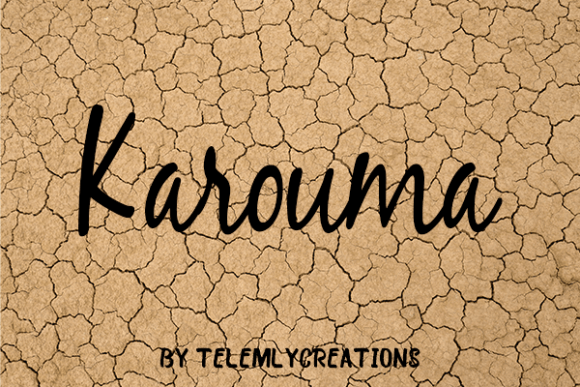
Introduction to Karouma Font
Karouma is a cute handwritten font.
It is the best choice for creating eye-catching logos, branding, and quotes Every letter has a unique and beautiful touch, which will make your design come alive.
Key Features of Karouma Font
Why Choose Karouma Font?